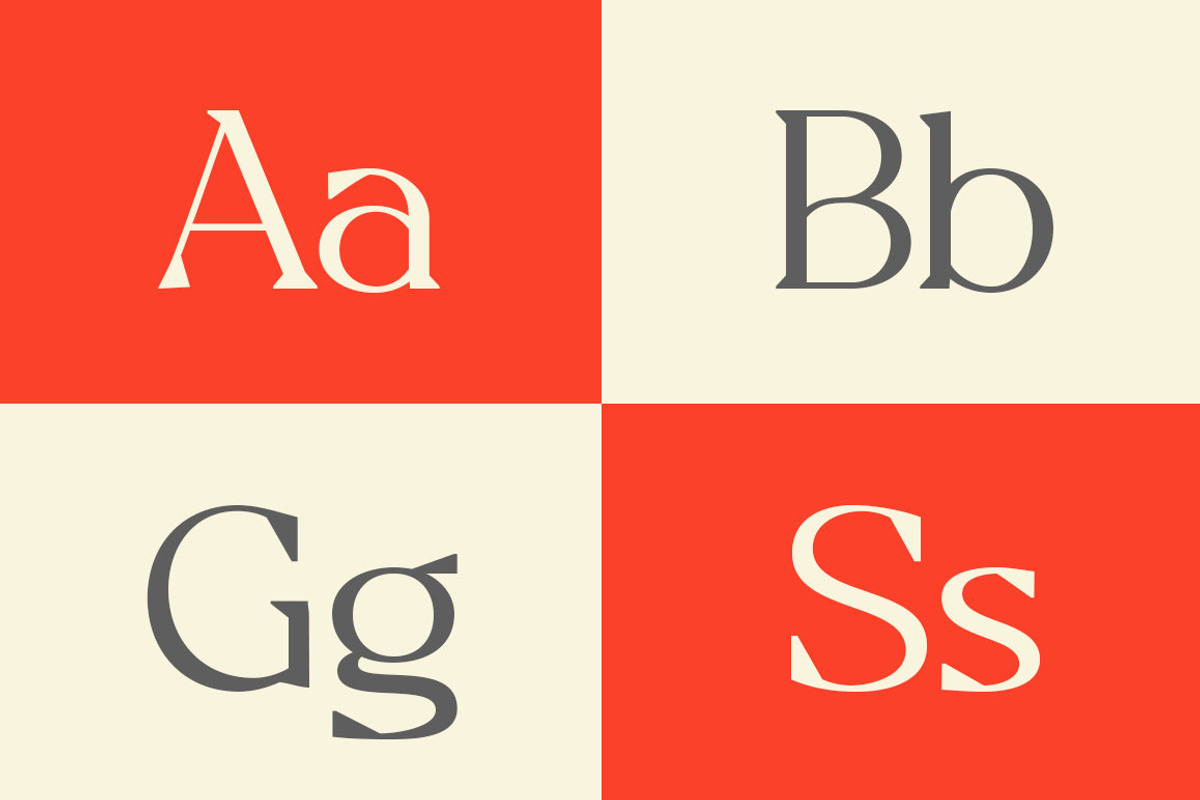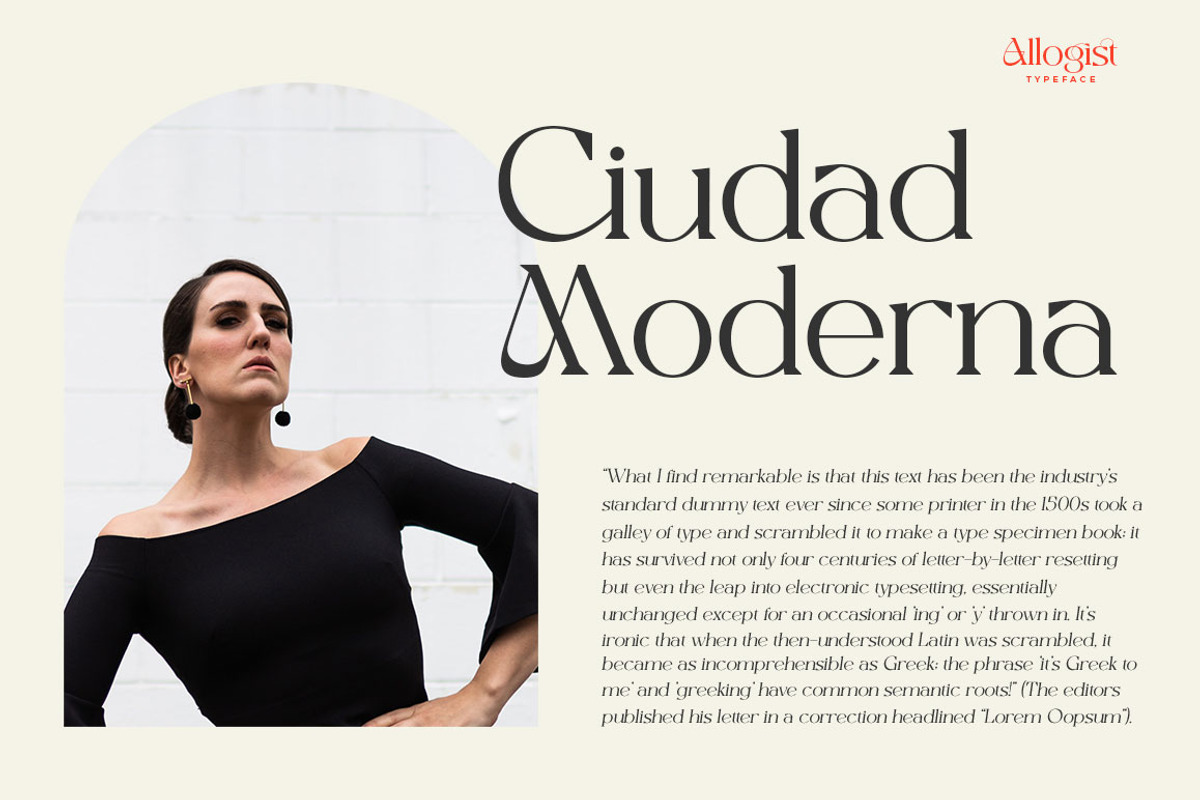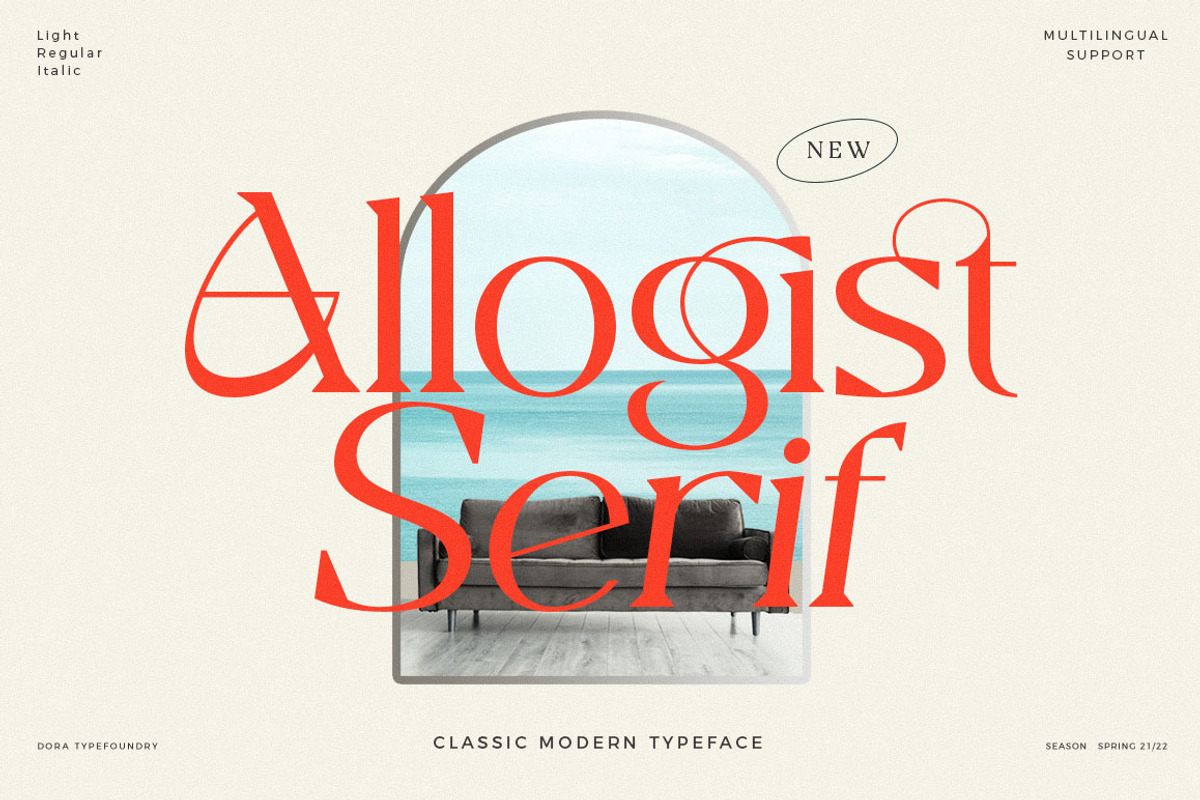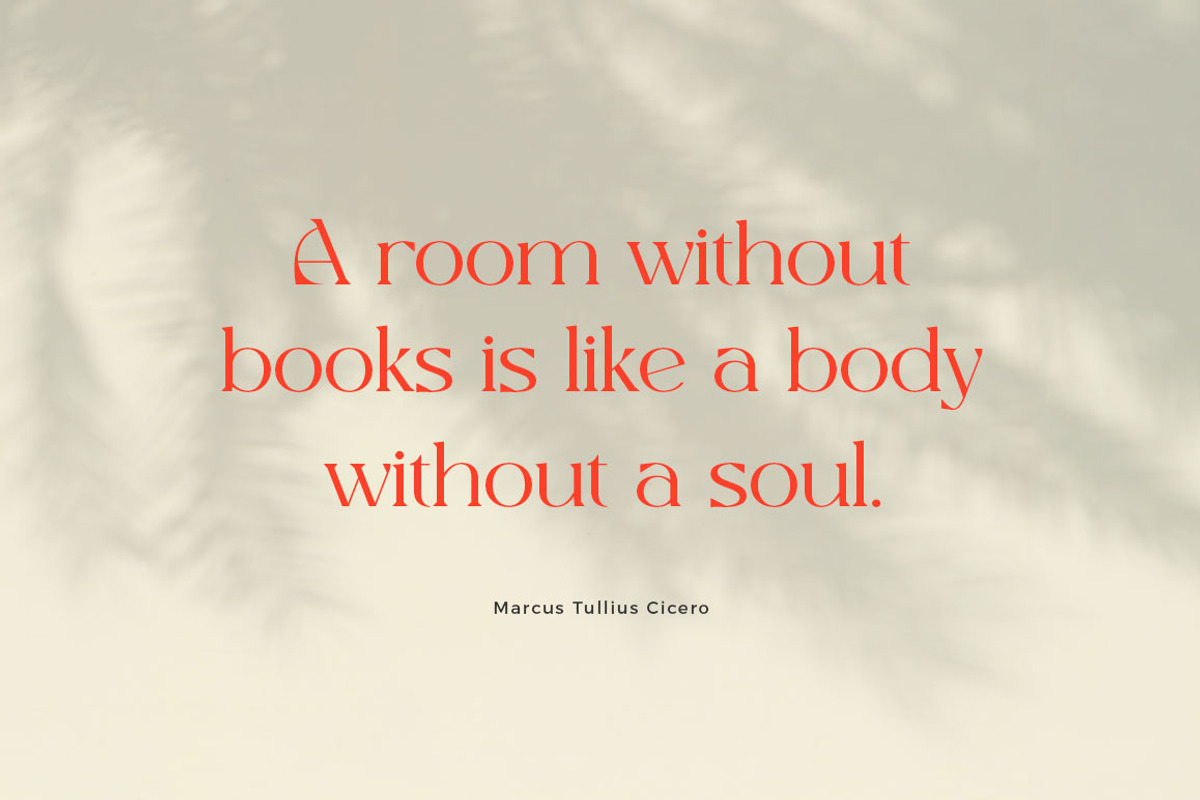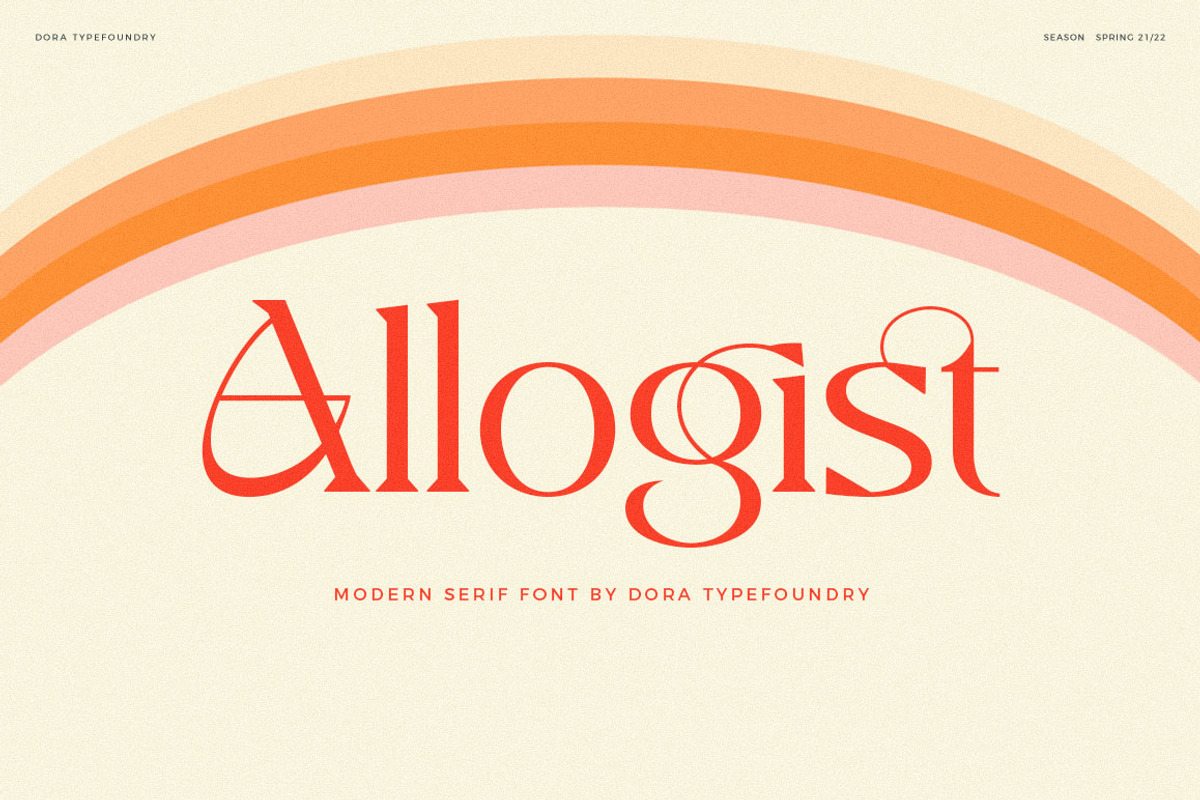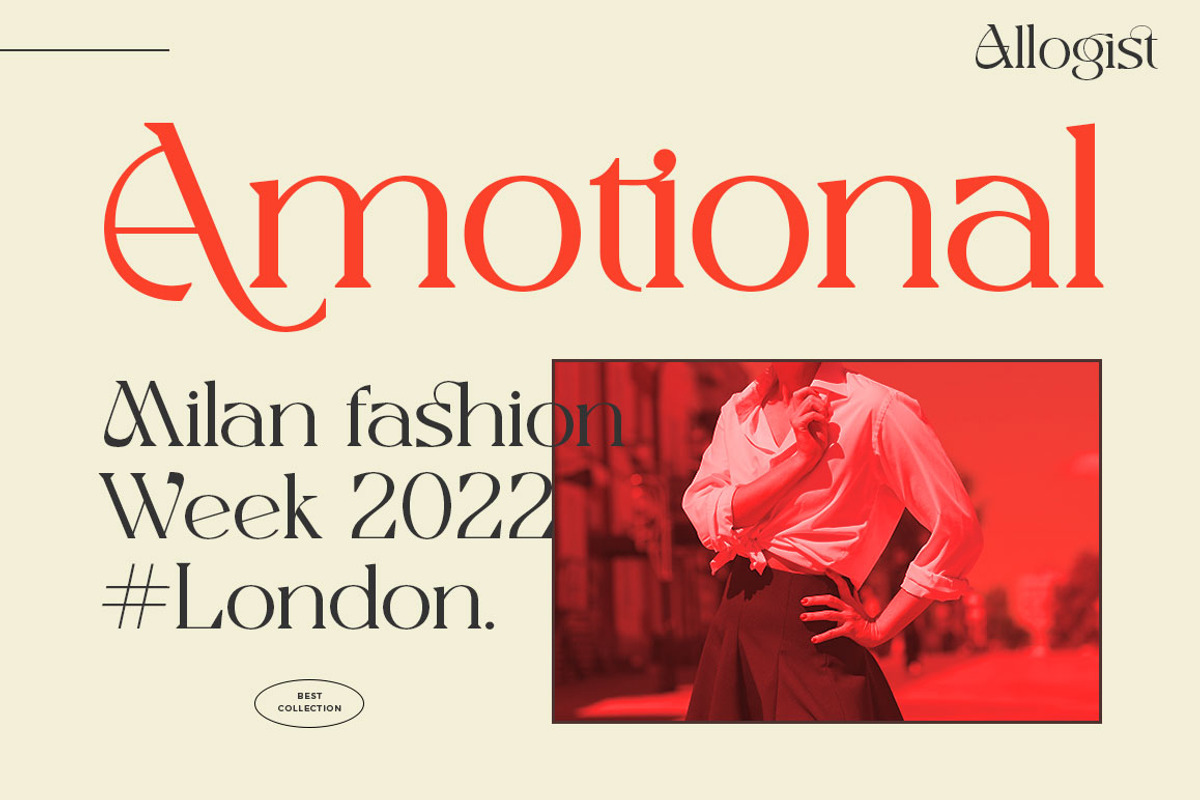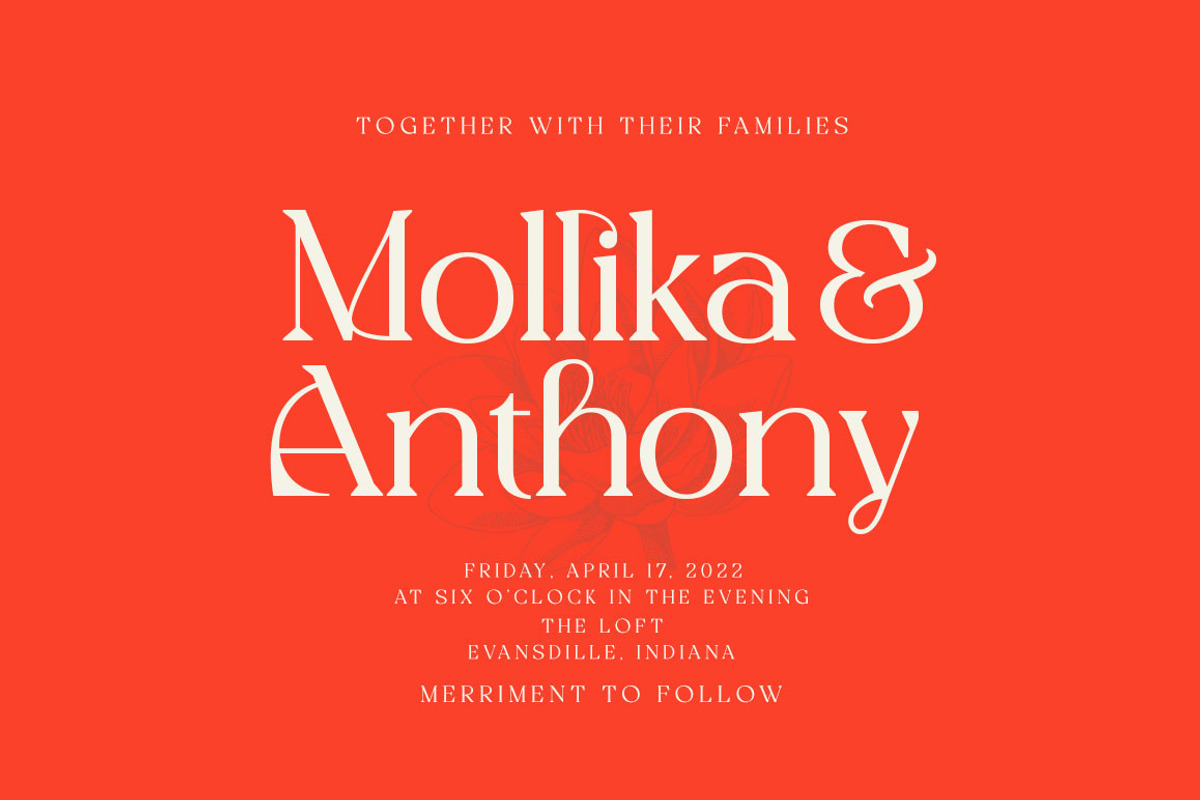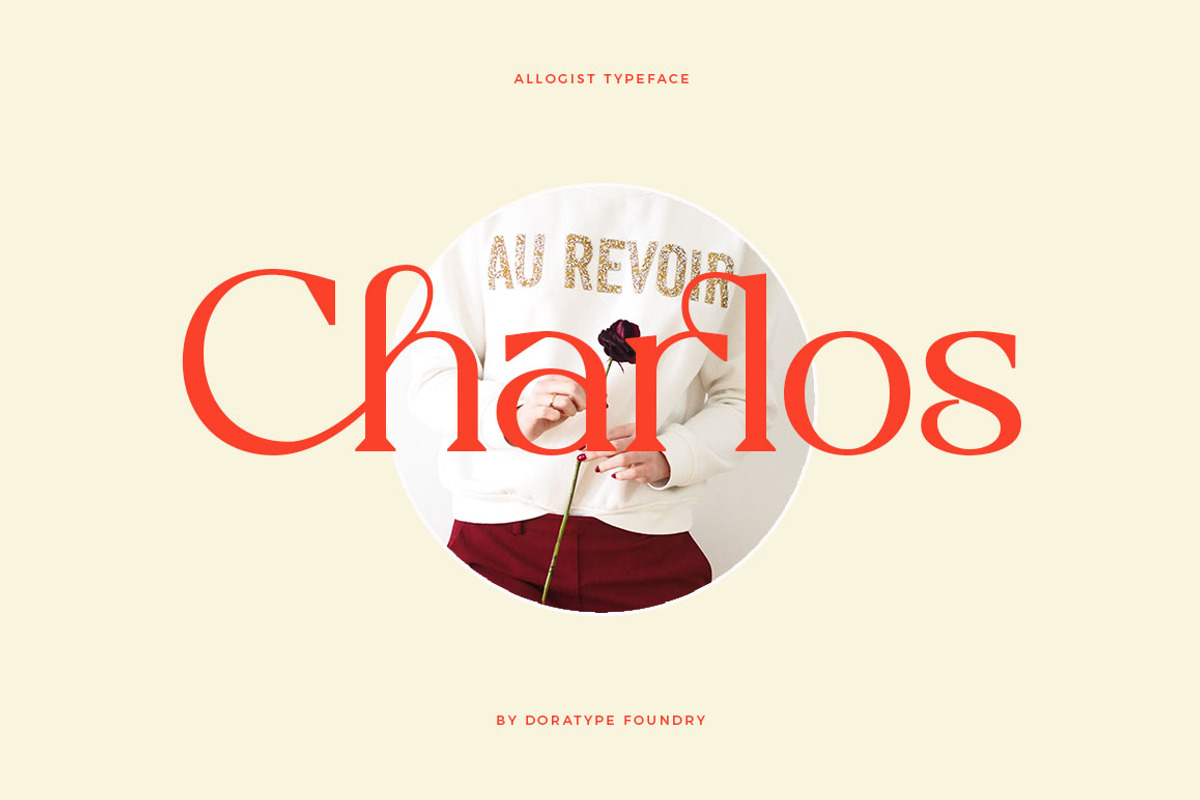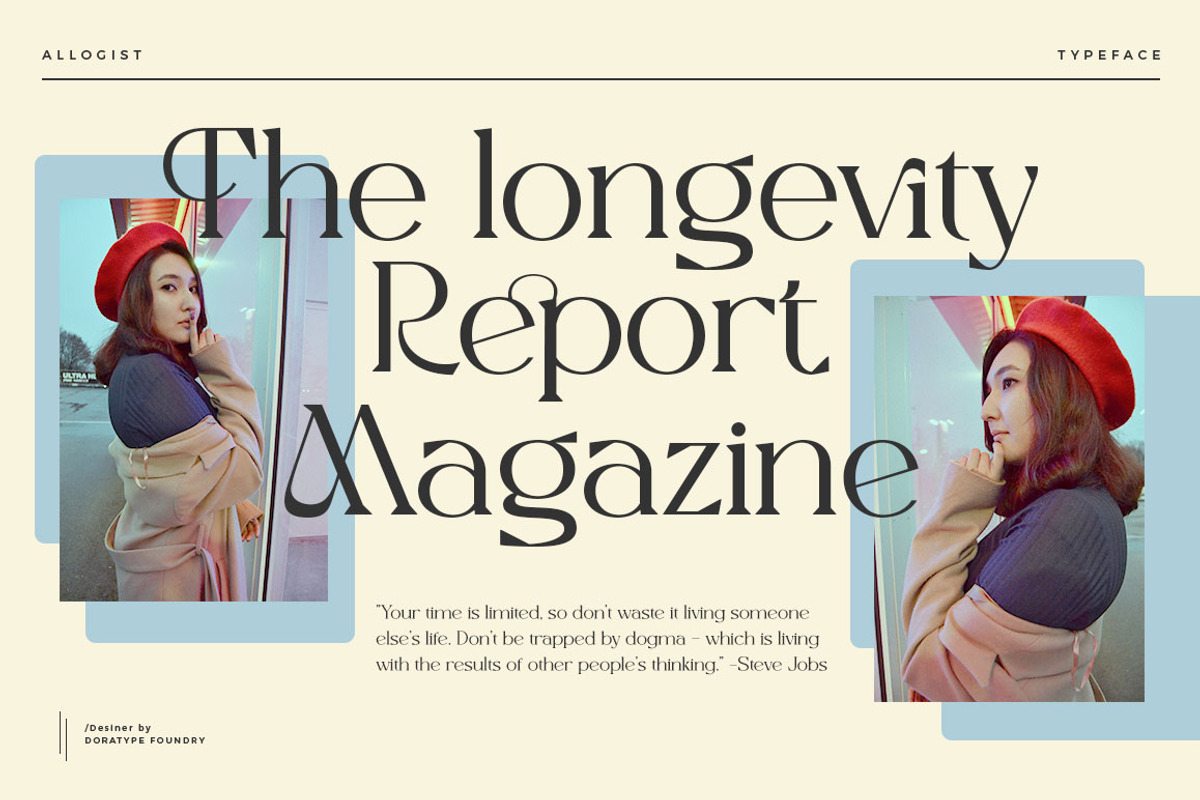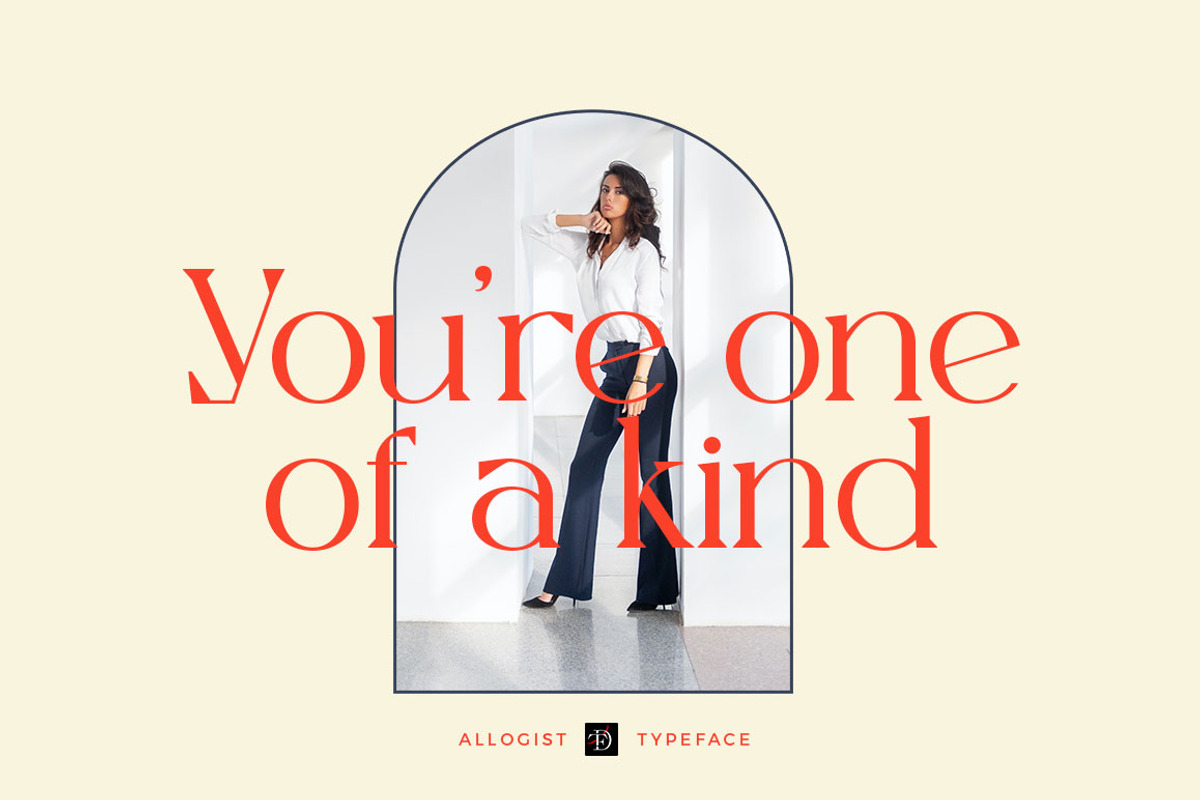
Allogist - Modern Typeface
Introducing, Allogist is a new elegant serif font that will add a touch of luxury and sharp diamond dots add a slick yet legible Persian style. This versatile font is Perfect for editorial projects, magazine headers, Logo designs, Clothing Branding, product packaging, and showcases masculine and feminine qualities.
Allogist is equipped with uppercase, lowercase, numbers and full punctuation + Multi language support and PUA-encode.
- Allogist Light
- Allogist Regular
- Allogist Italic
- 3 Font weight
- Uppercase & Lowercase letters
- Alternative & Ligature Styles
- Characters with accents -Supports Multiple Languages